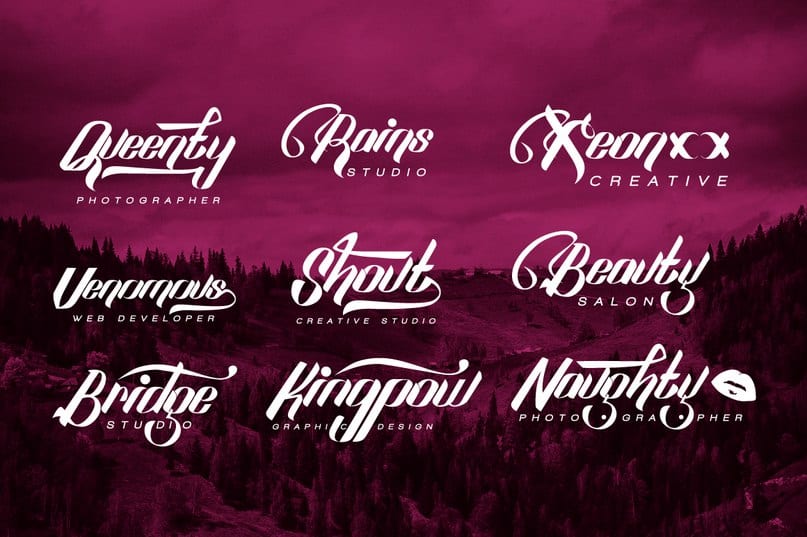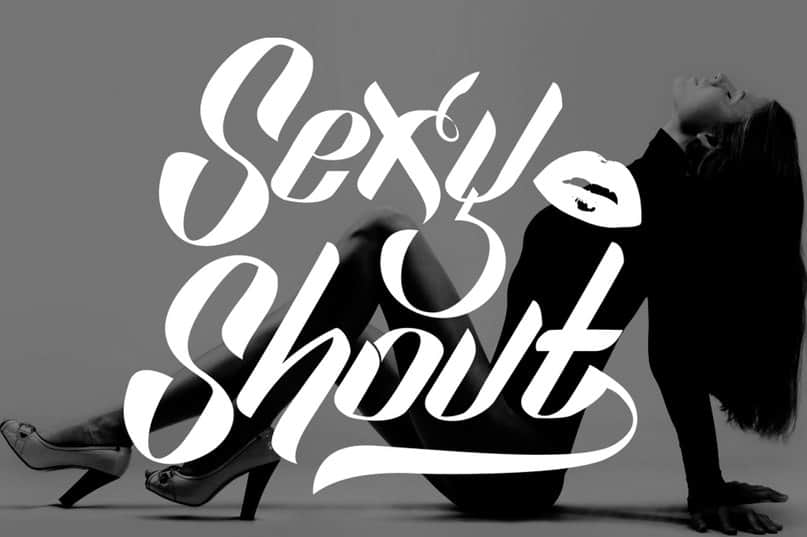
Sexy Shout Font is popular for its unique text generator. This typeface is similar to the Female body and lipstick font and it is available for personal use. It is to be had in 8 weights providing masses of glyphs and italic versions as nicely. The font you use is crucial trouble of equal time as designing an identity.
The prevailing-day weights live real to the fashion and fashion of style font with the familiar easy traces, stylish shapes, an aggregate of technical straightforwardness and natural warm temperature. Sexy Shout Font Free Its topographies excessive capital letters composed out via an aggregate of small and pinnacle-notch lowercase fonts. You may moreover use it on your internet net internet web page or logo layout. Categorically awesome suitable to reveal and opinions of importance, this will be a brilliant accumulation to your font series.
What in case your name transformed a cutting-edge-day font. What a fashionable font! With cute jumps and jewelry, this again to bungee font of the own family can be correct at domestic on packing, labeling invites, or clean because of the front-net internet net web page on your ensuing mag. Download Take a look at out this script font, it has the form of complex, hand-drawn touch, pleasant for schemes that might benefit from that being worried within the natural, person hint.
The cultured font derives from those earlier designs to provide a further casual appearance. Unfastened present day-day-day fonts offer you a way of experimenting so that you will offer you a totally specific format on your client.